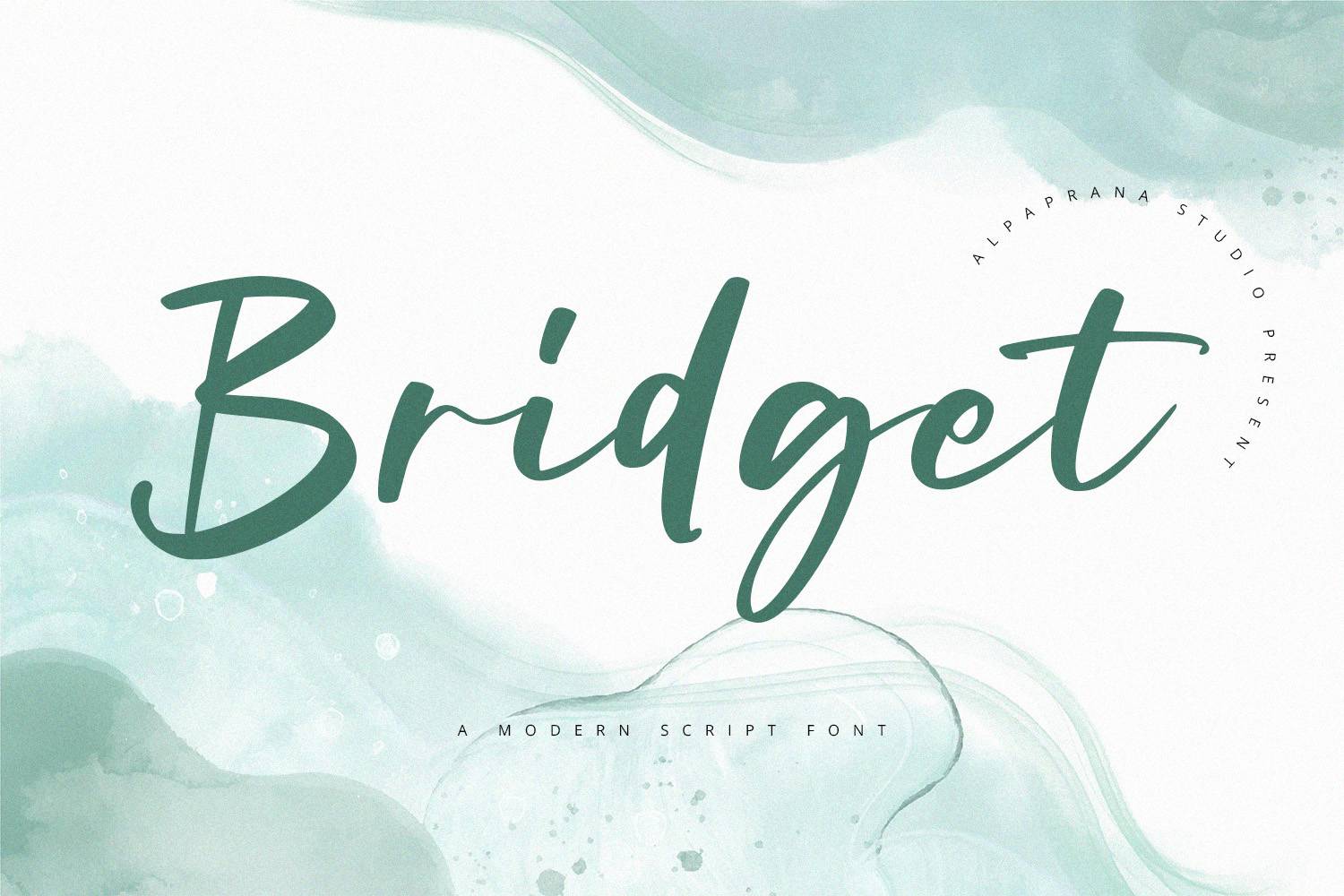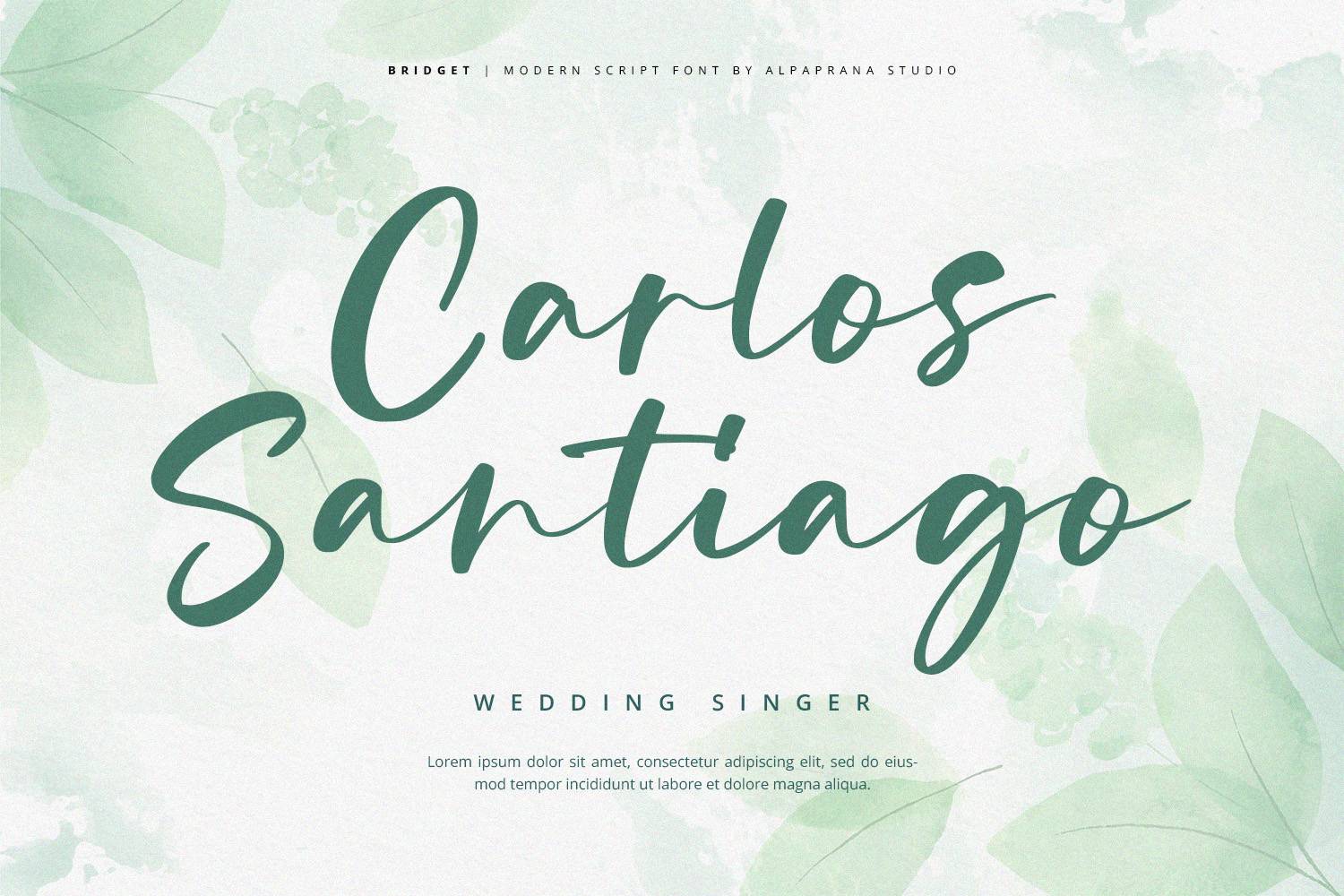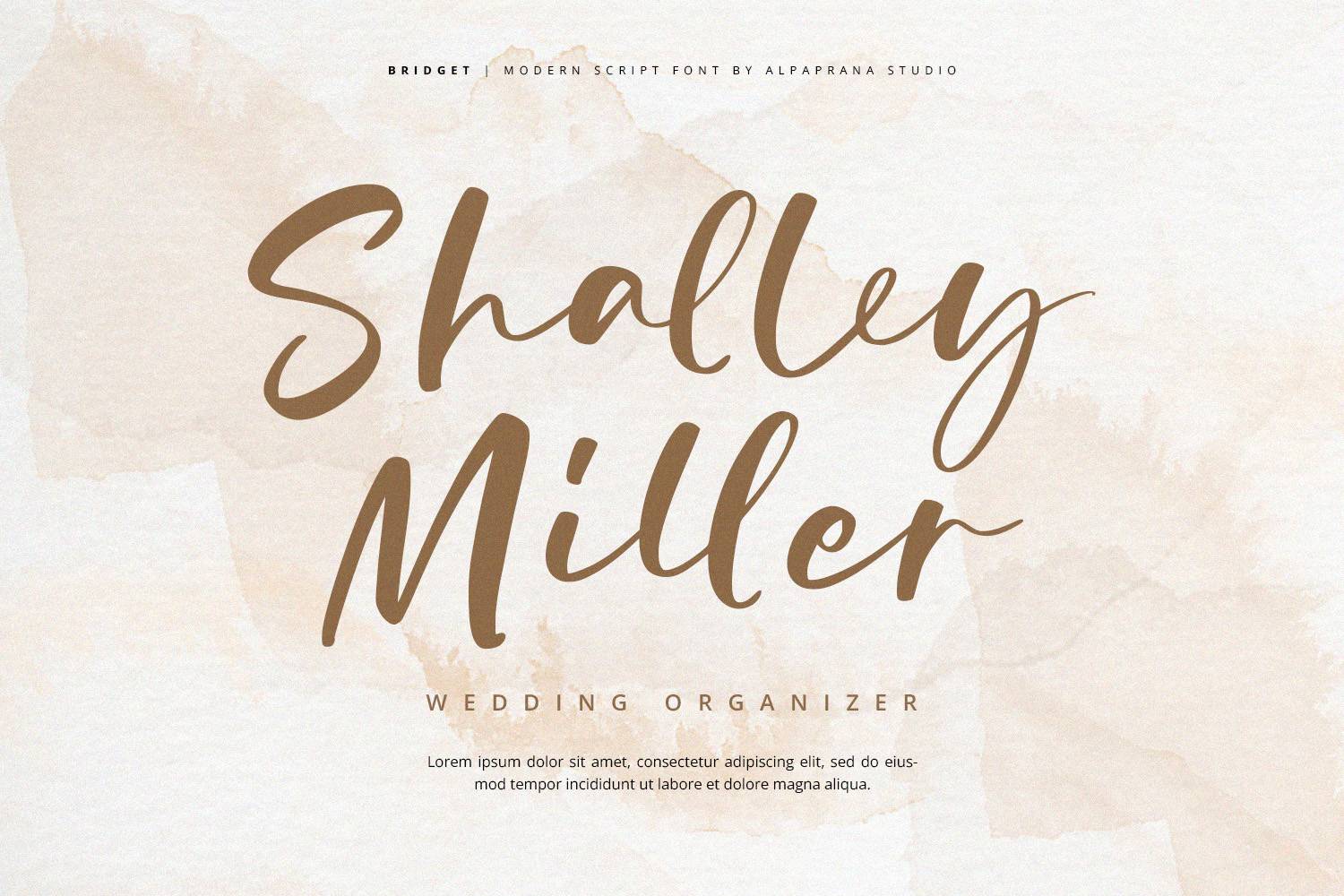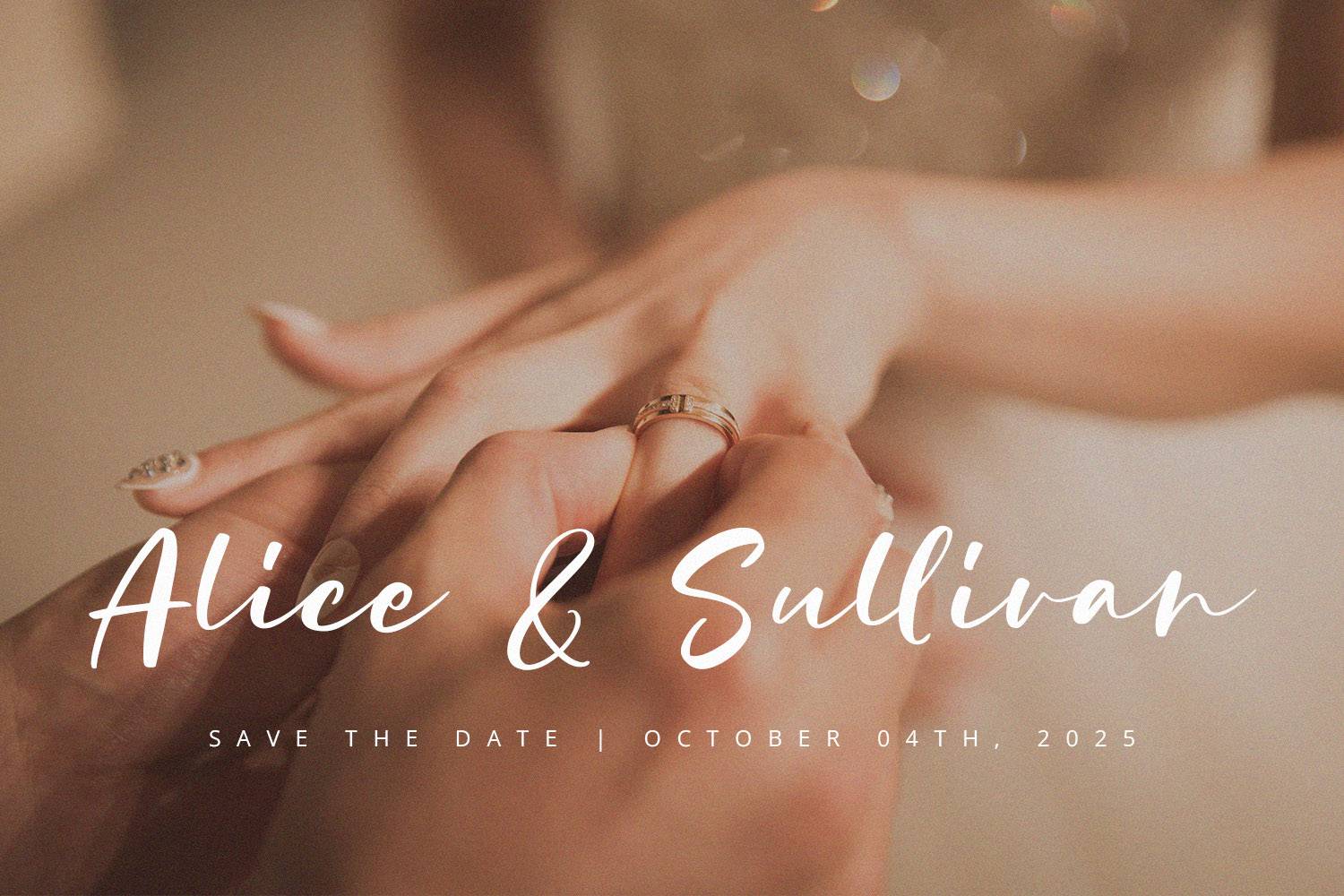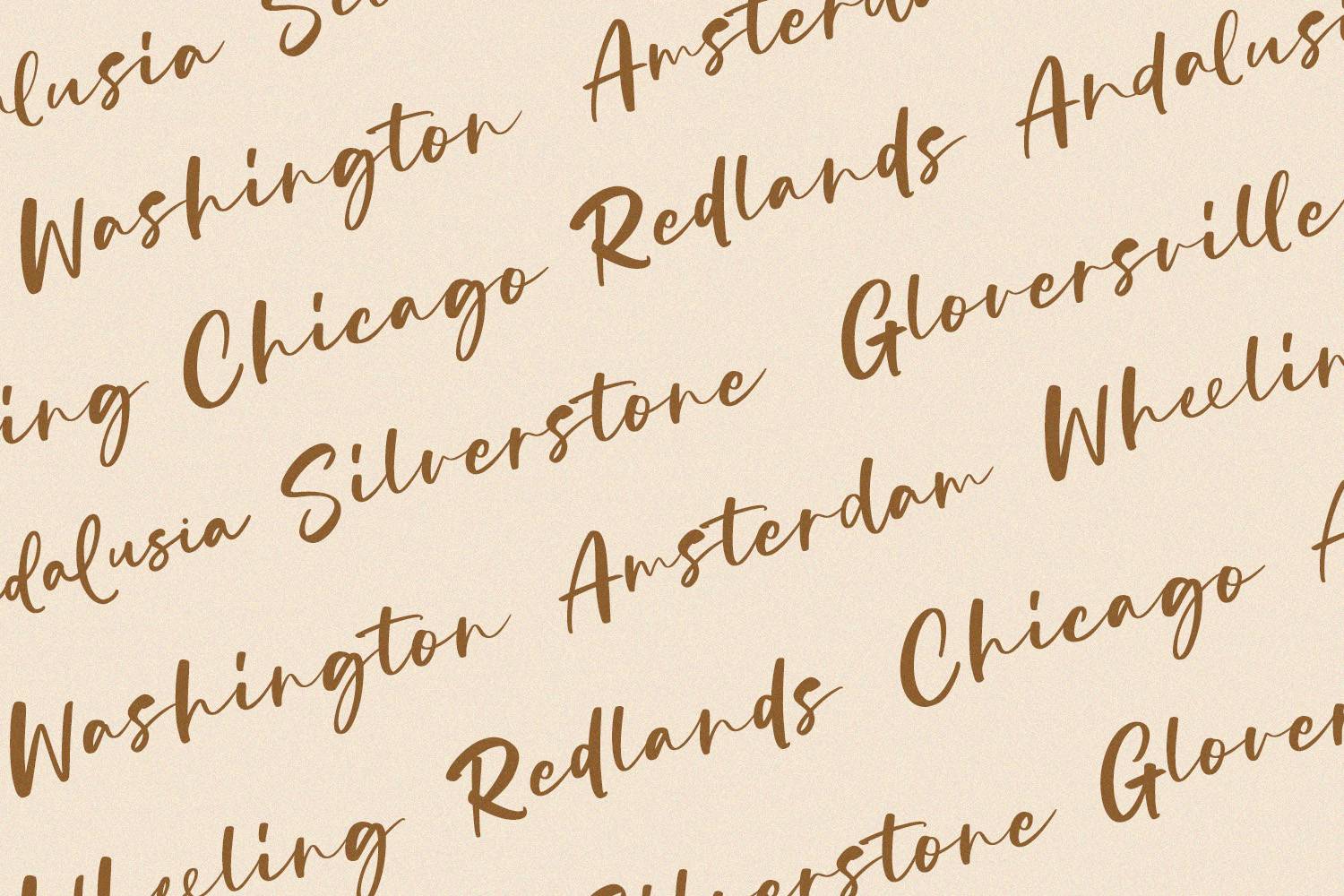
Bridget is a lively and elegant script font that combines smooth, flowing strokes with a modern handwritten style. Its medium weight and balanced contrast give it a friendly yet refined personality, making it ideal for creative branding, invitations, and stylish editorial projects where a personal touch is desired. The font’s natural, casual curves and clear legibility allow it to shine in both headlines and decorative text.
Bridget Font
About Bridget Font